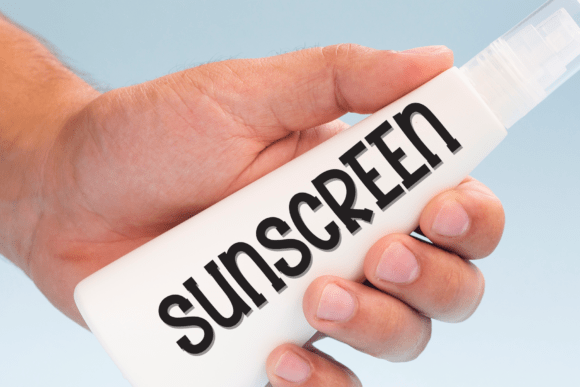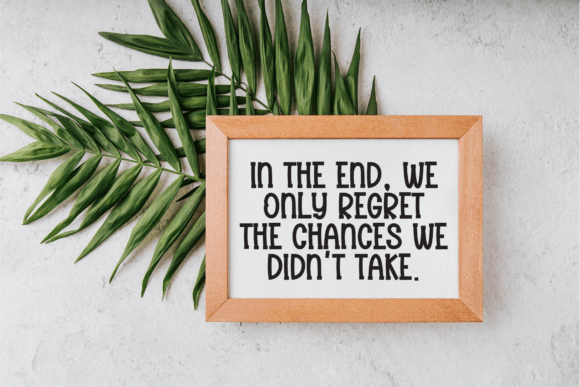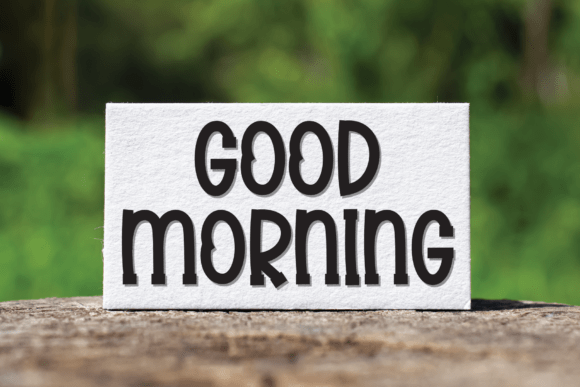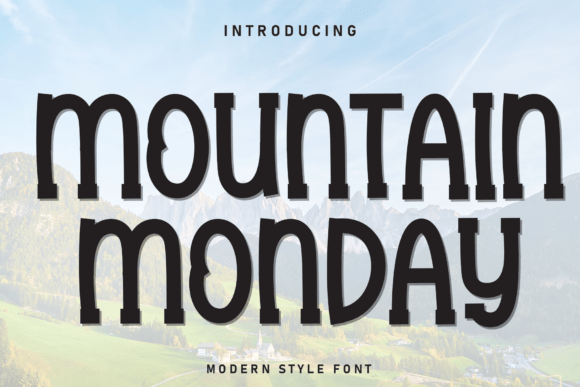
Introduction to Mountain Monday Font
Reach new peaks with the Mountain Monday font, a sturdy and adventurous display typeface built for the great outdoors.
This Mountain Monday typeface features a heavy, grounded structure with a slight shadow effect that gives your text a bold, 3D presence The Mountain Monday font is the ideal choice for outdoor gear branding, adventure travel posters, and rugged lifestyle apparel.